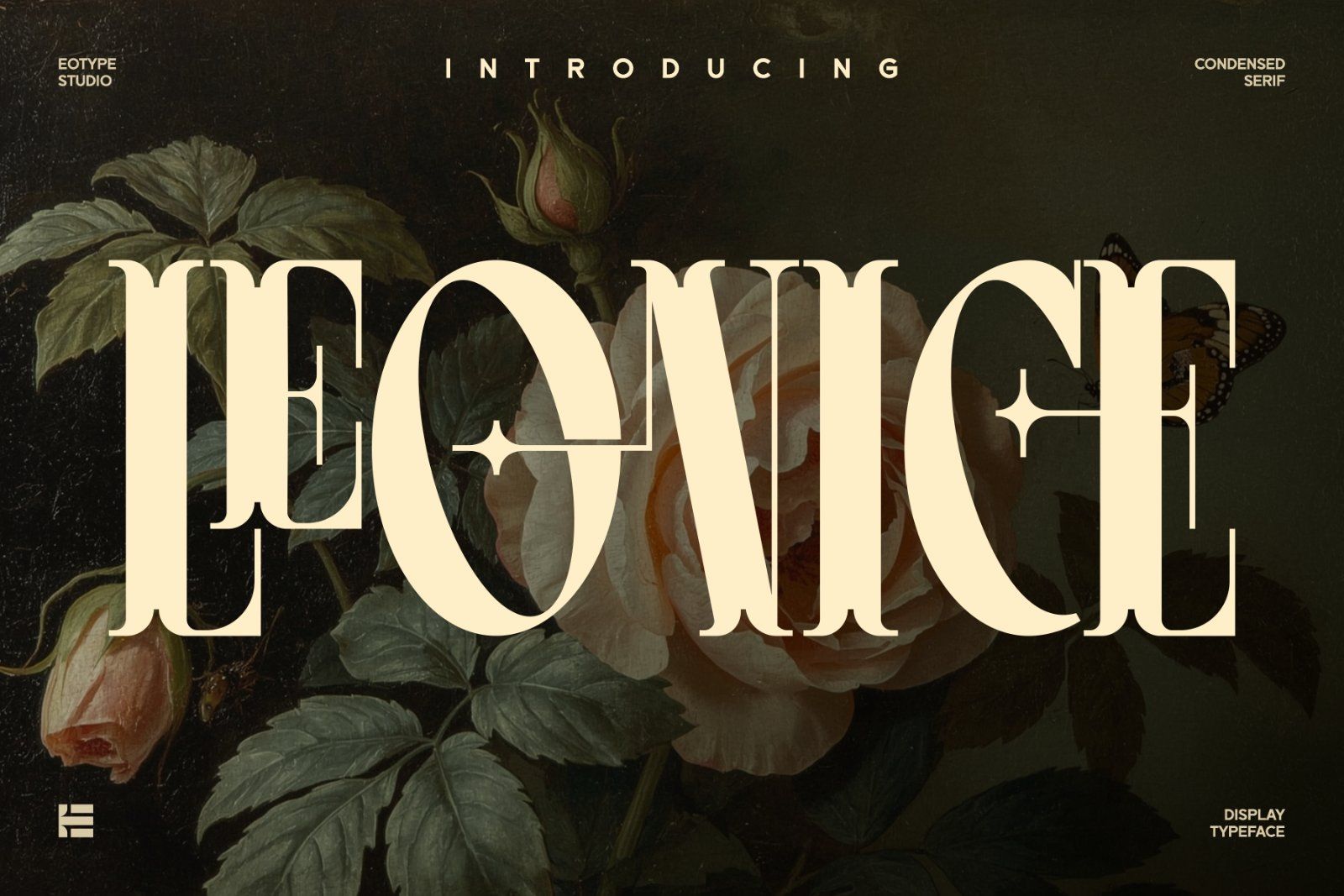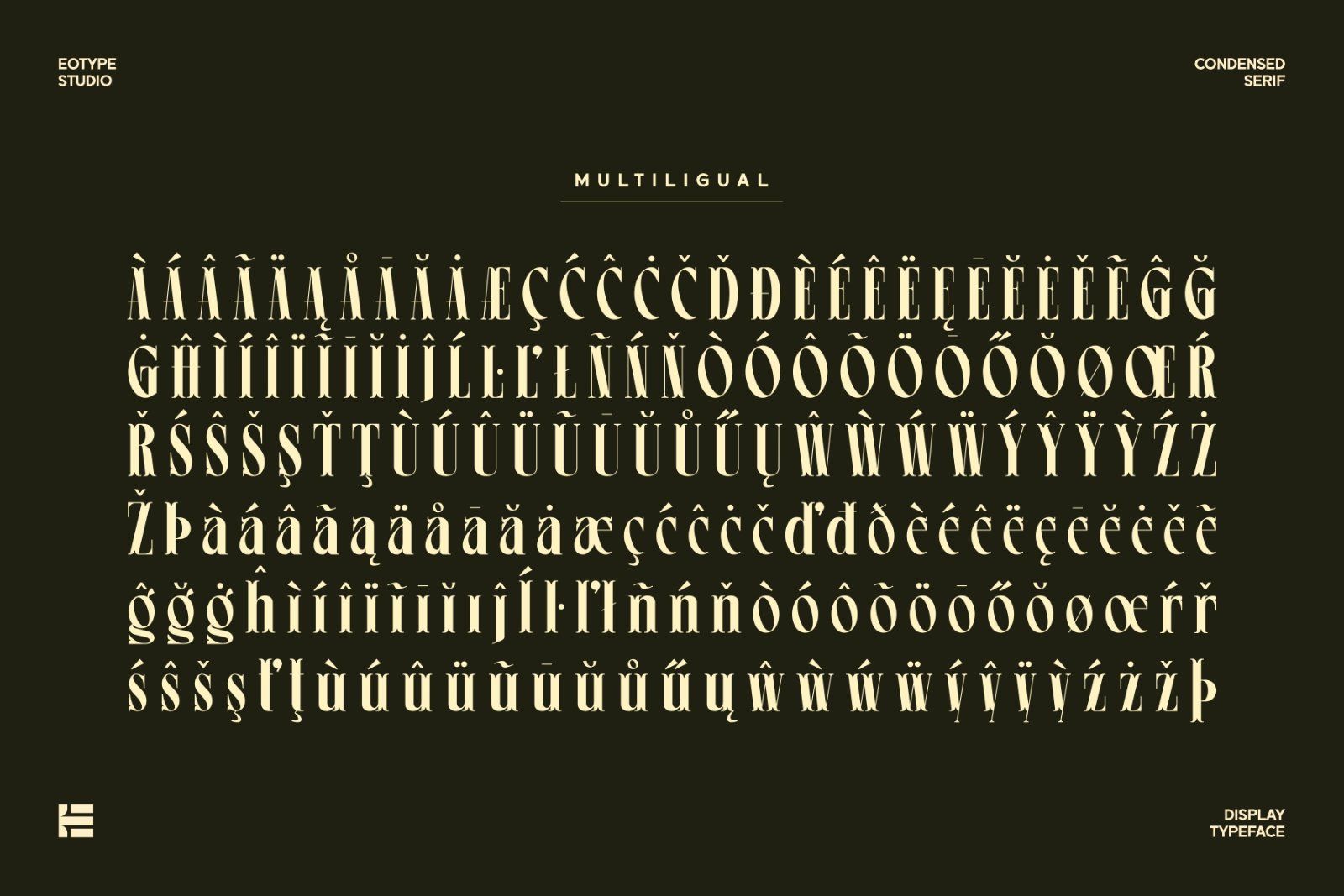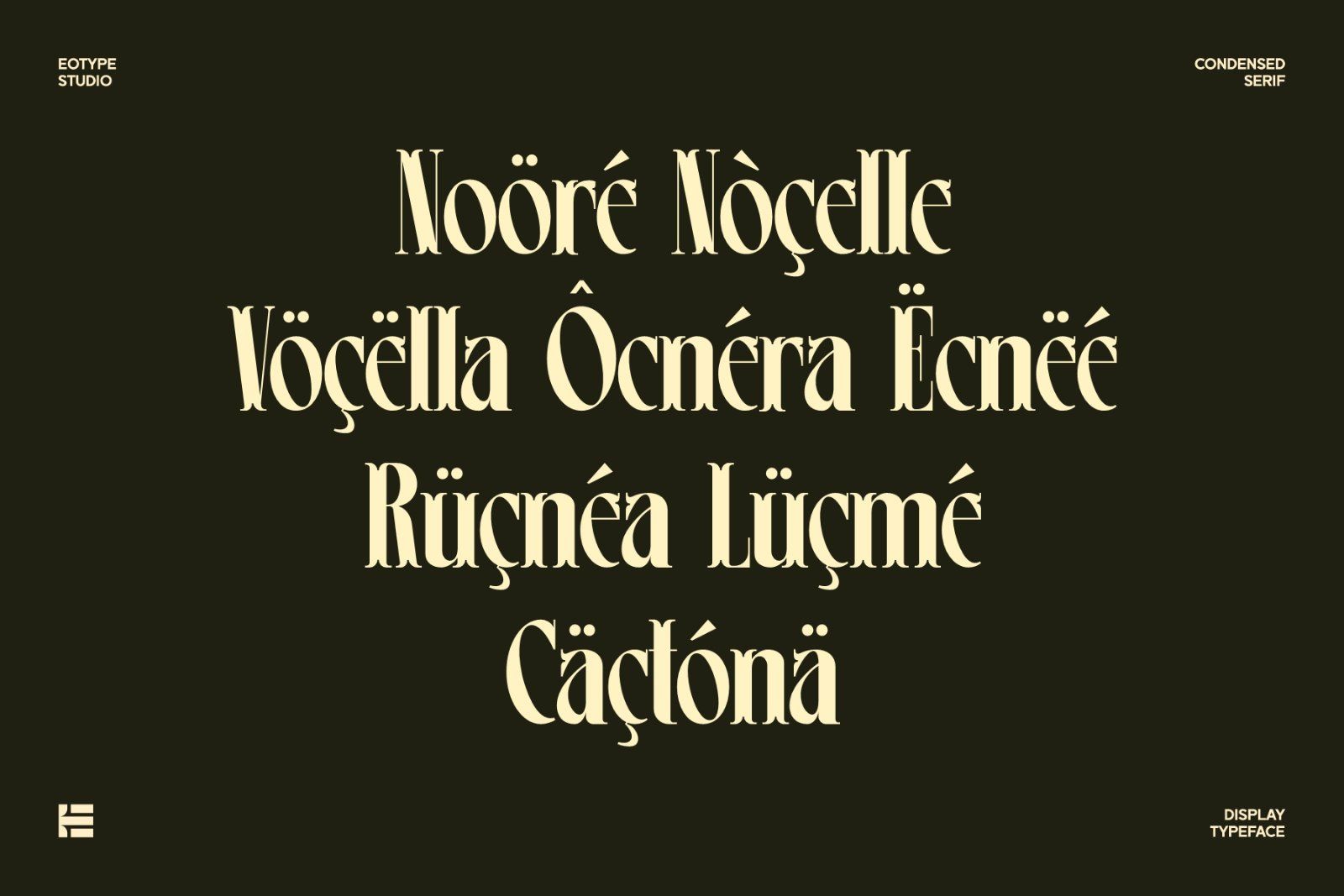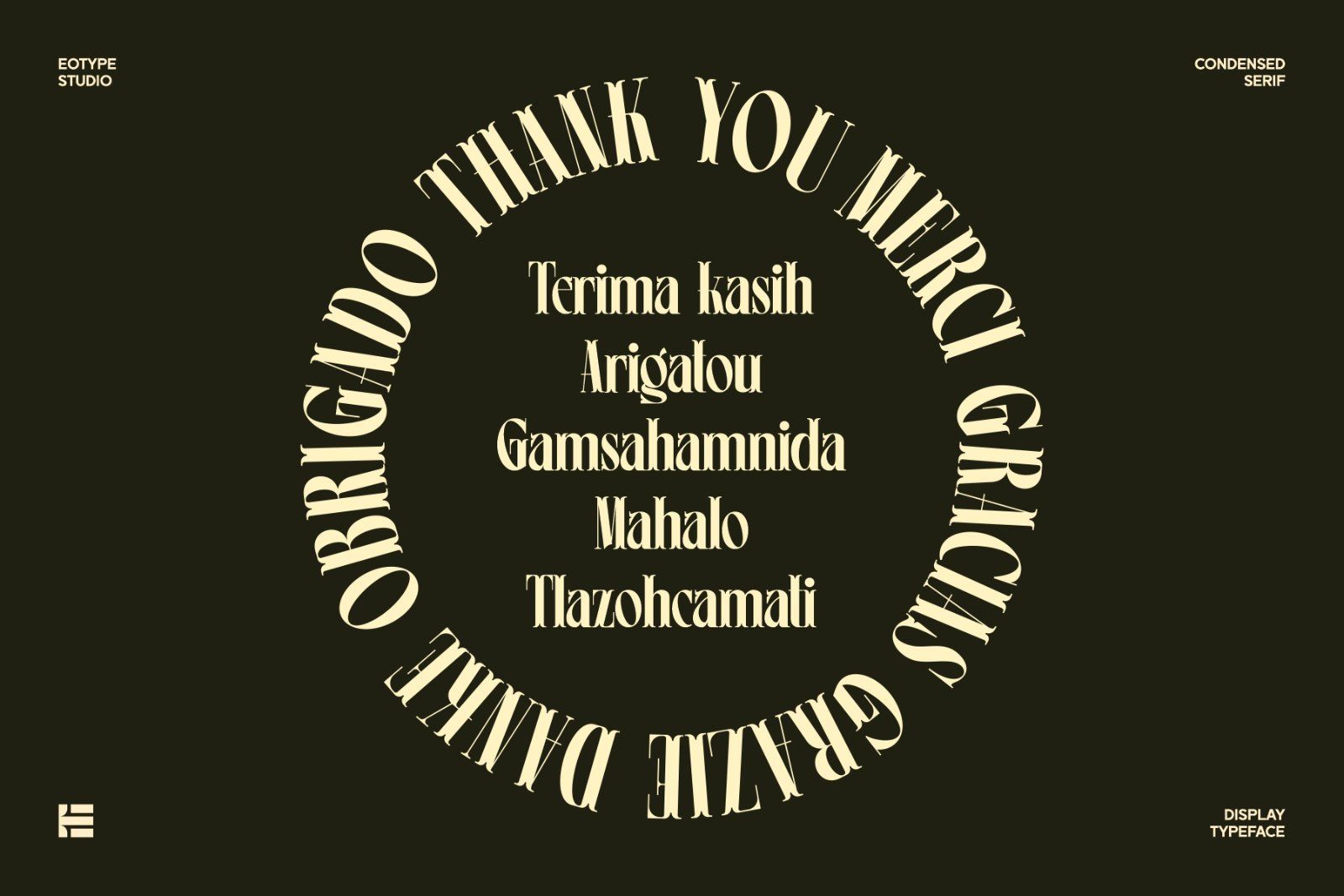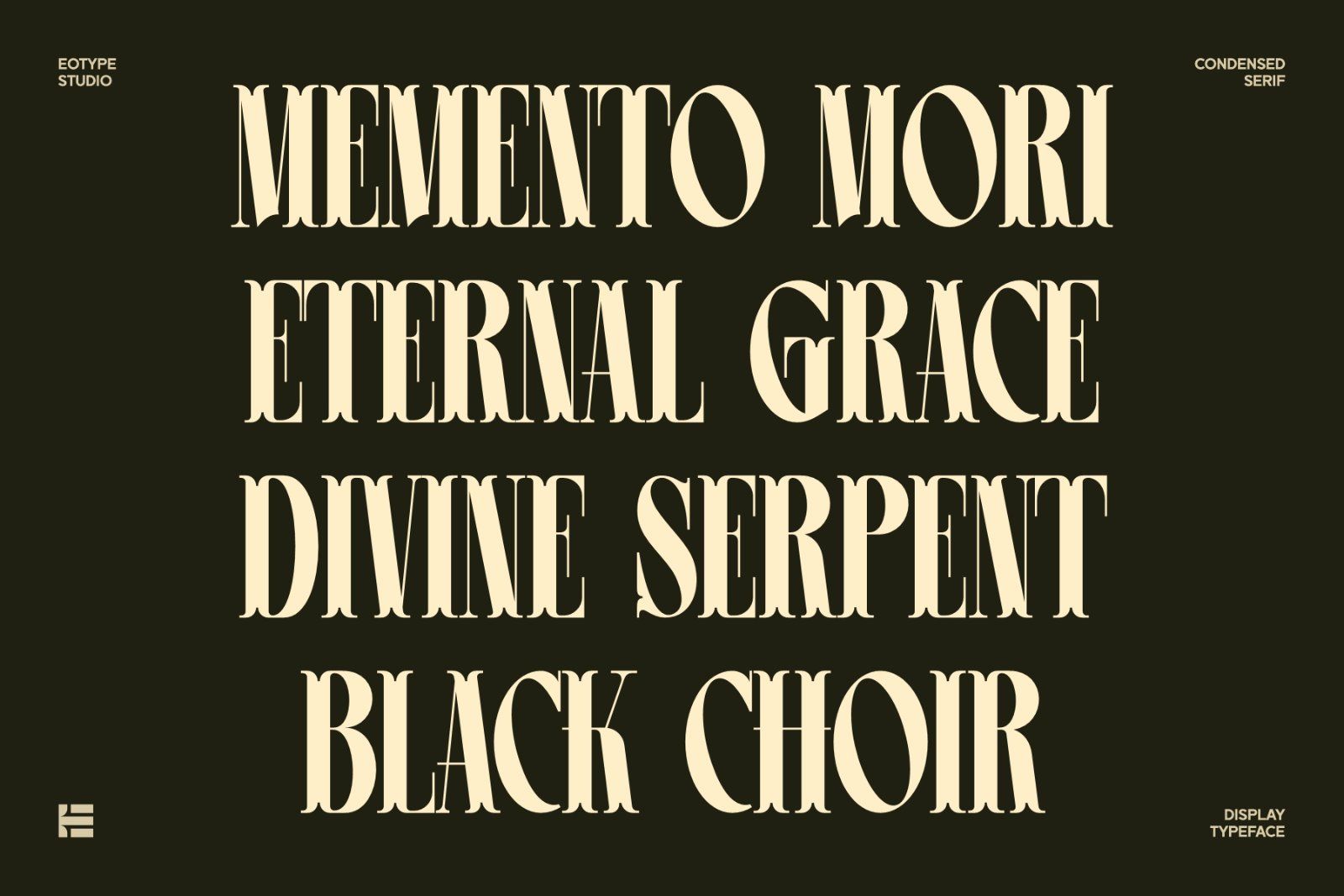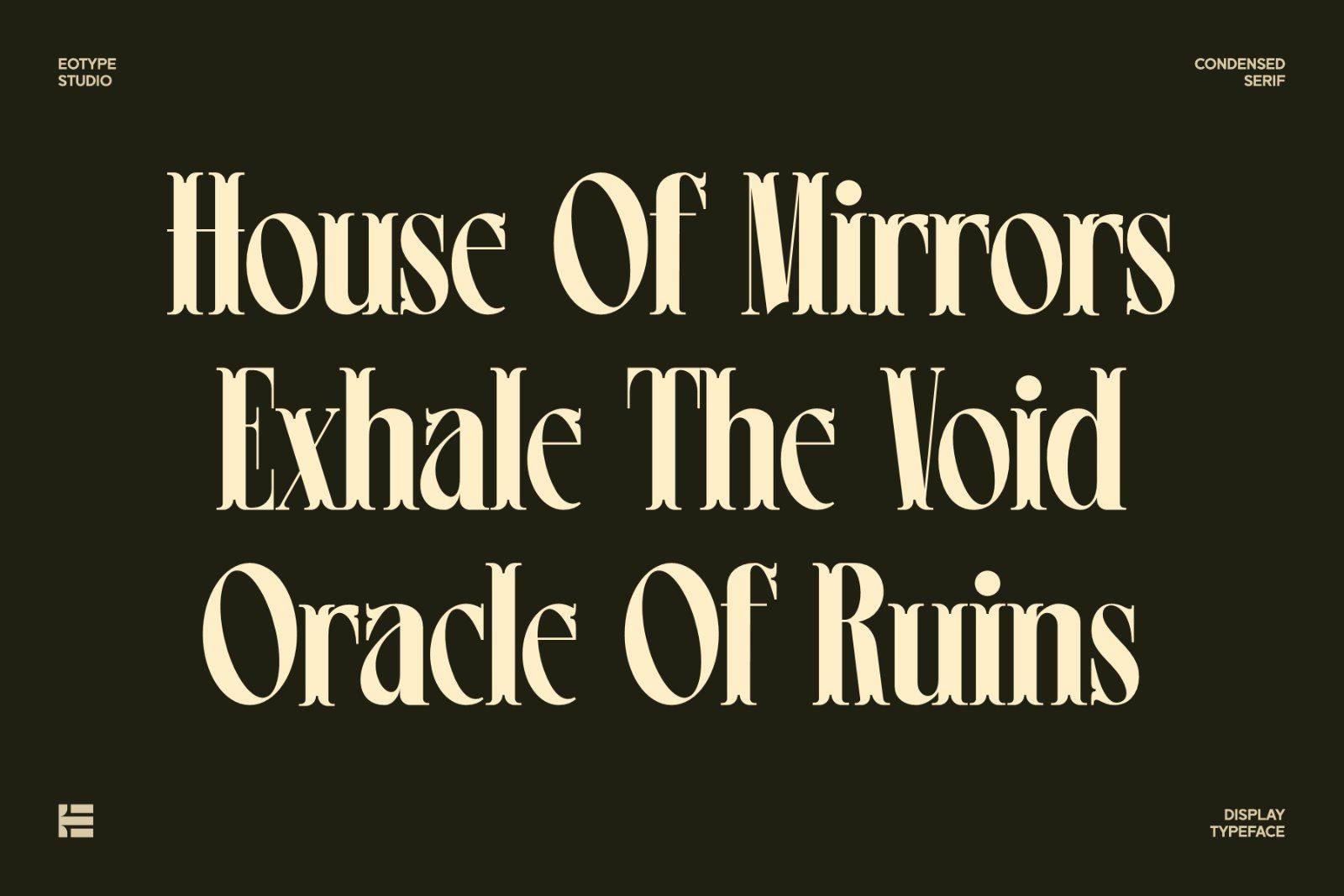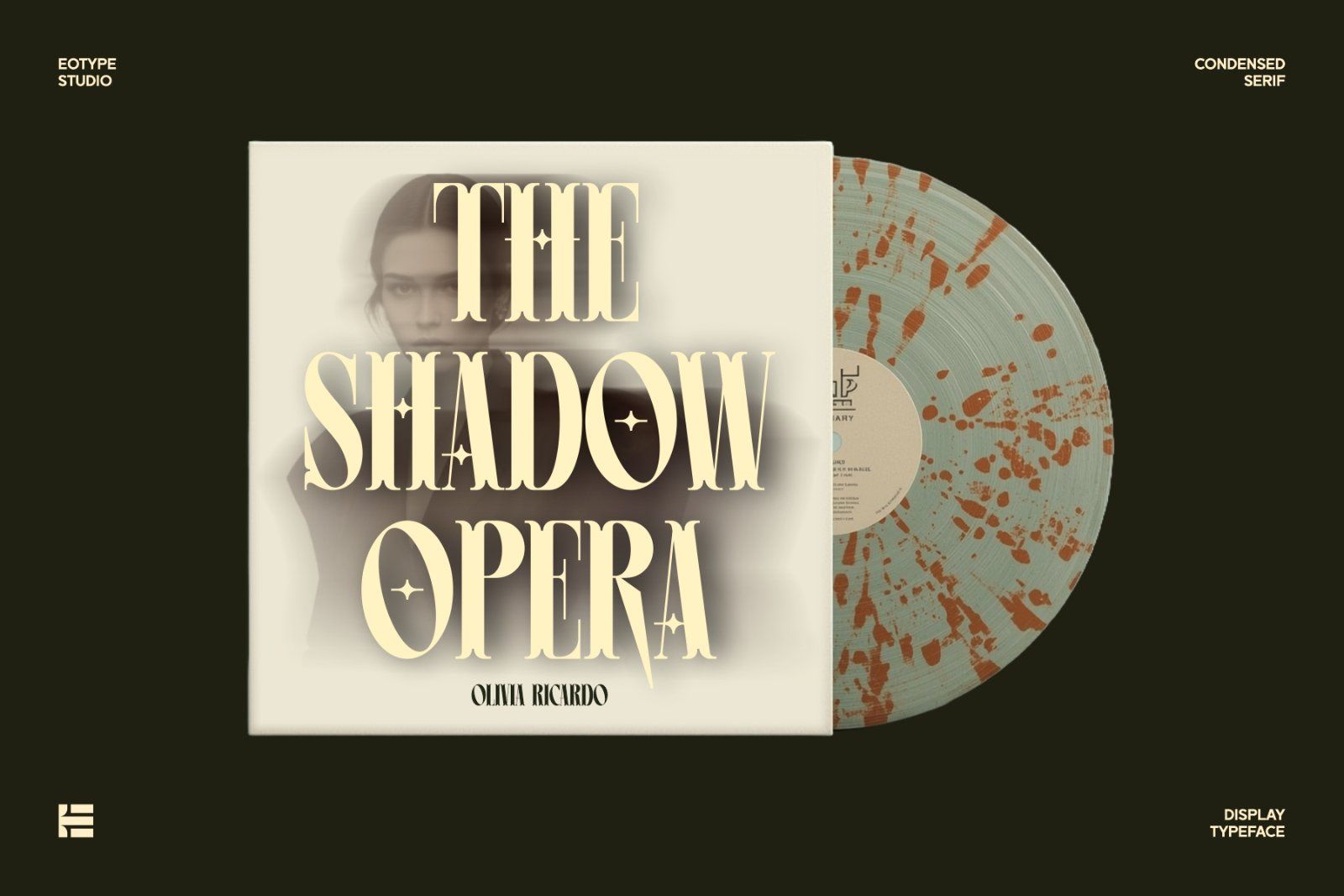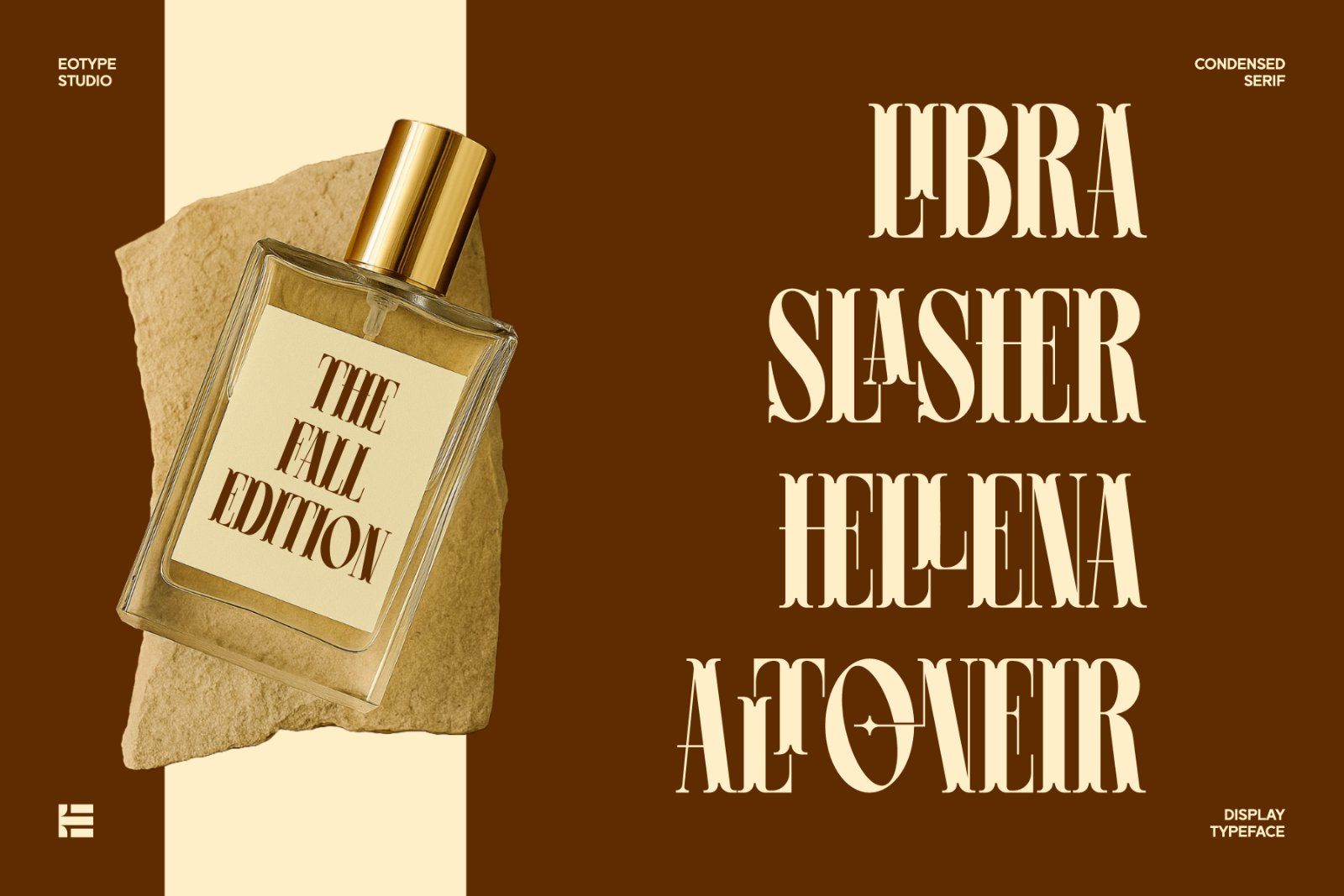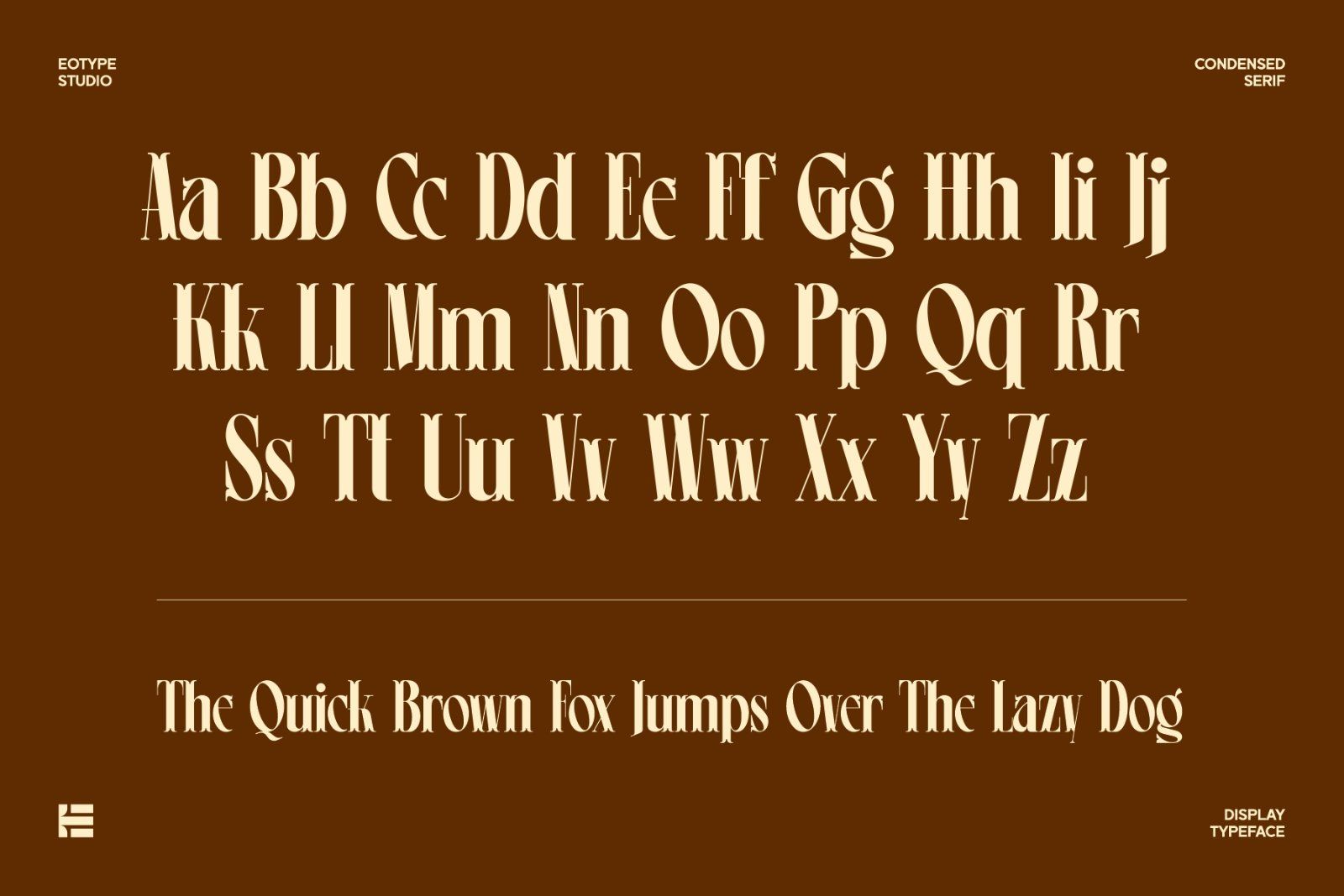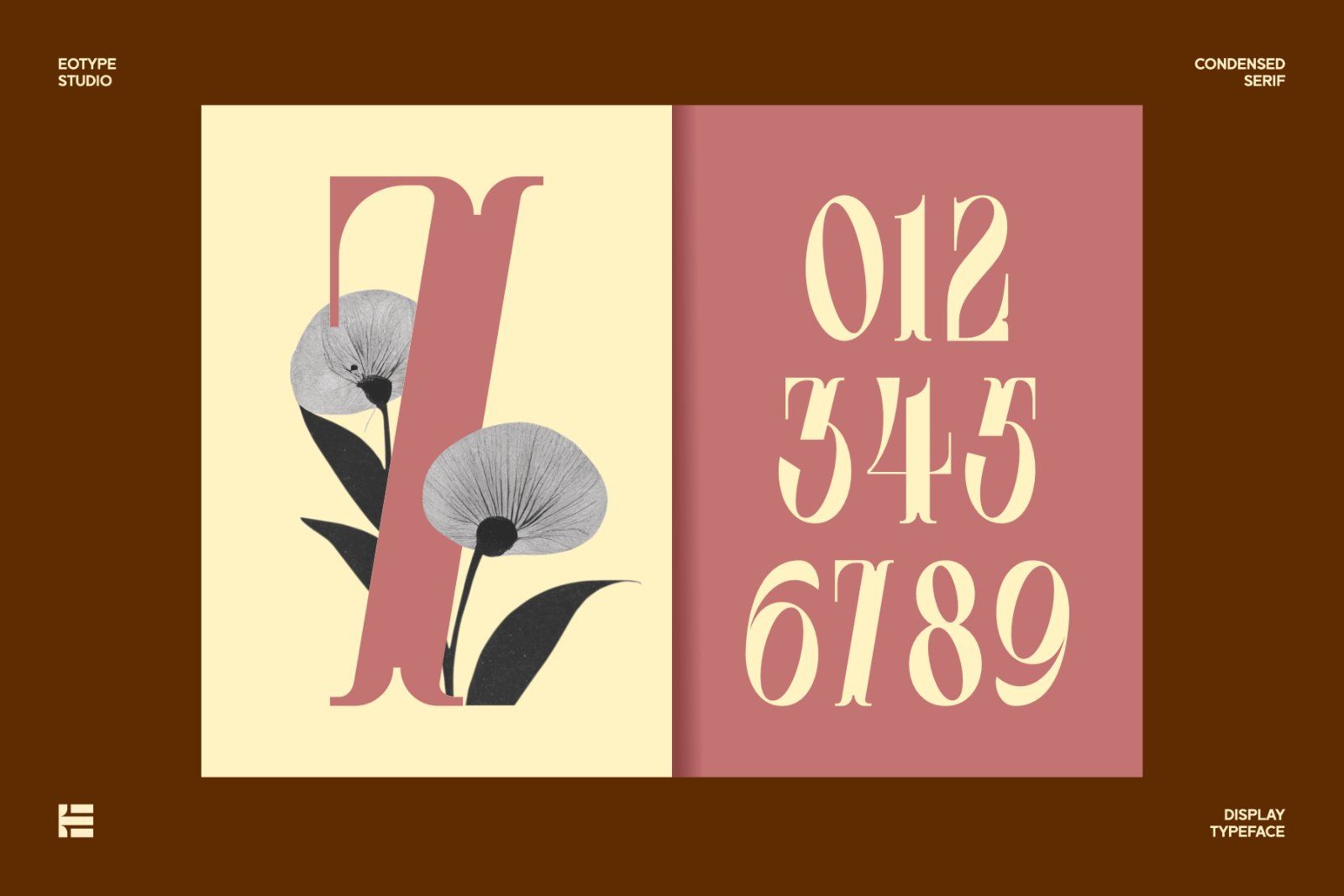
Leonice is a high-contrast condensed serif font that breathes elegance into every glyph. With stylistic alternates and curated ligatures, it's crafted for designers who dare to be bold, dramatic, and refined. Whether for haute couture branding, editorial layouts, or cinematic titles, Leonice delivers a timeless whisper with a modern bite.